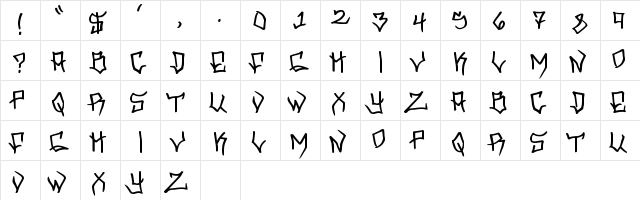
Hooligan Regular
| Foundry | Font Monger |
| Designer | Chris Vile |
Design Context for Hooligan Typeface
Hooligan is a composed and adaptable typeface that performs quietly and consistently across a wide range of design contexts.